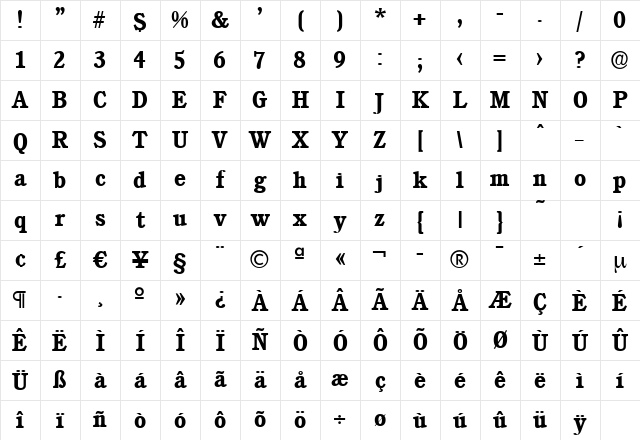
Complete DanielBecker Bold glyph index. Displaying only characters natively supported by DanielBecker Bold font.
DanielBecker is a composed and adaptable typeface that performs quietly and consistently across a wide range of design contexts. Its bold stroke weight gives it real presence on the page.